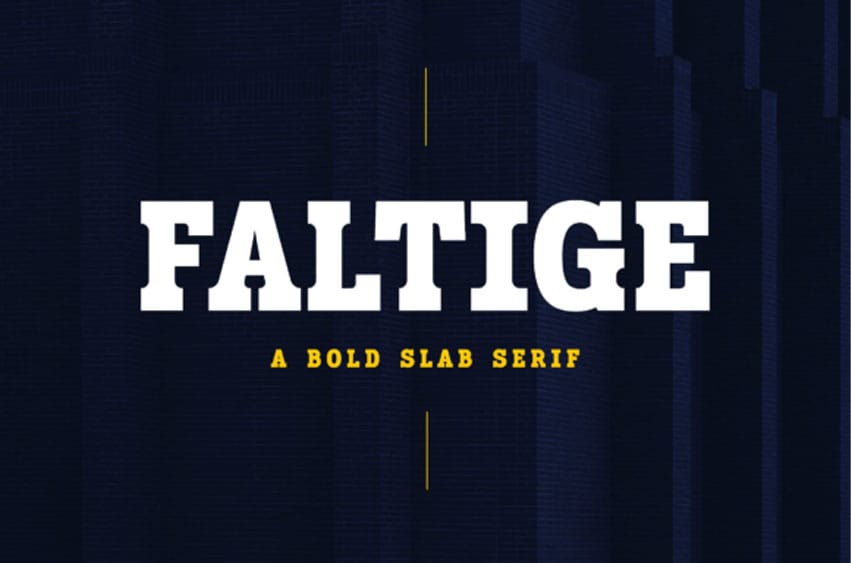
Faltige Font is a bold slab serif font. Expertly designed to make your creation look out of this world, this font will look gorgeous on a variety of ideas.
This font is ideal for writing web designs, business cards, or pretty much anything else that requires a unique touch.